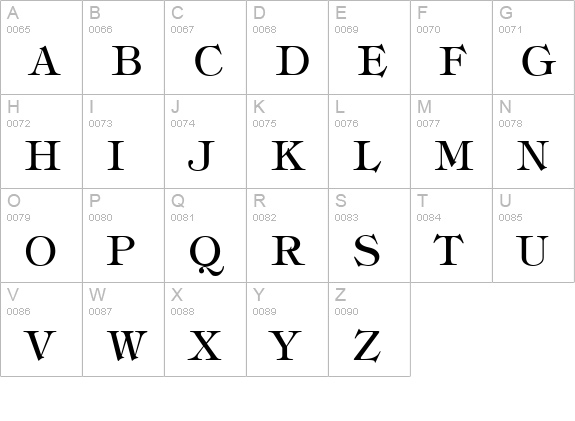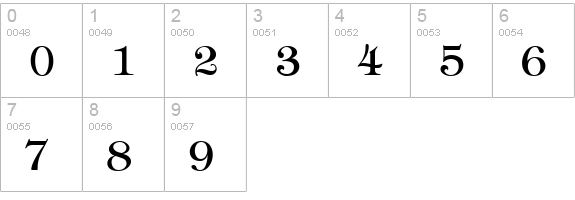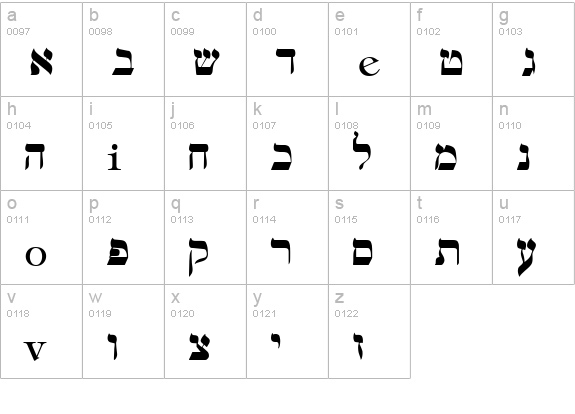
Hebrew Regular Font Details
Hebrew Regular is the standard, neutral variant in the Hebrew typeface family \xE2\x80\x94 well suited to general body text, paragraphs, and standard typographic work.
Hebrew Regular font is a beautifully designed typeface that perfectly captures the elegance and grace of the Hebrew script. With its clean lines and balanced proportions, this font is ideal for a wide range of projects, from print materials to digital designs. The Hebrew Regular font is not only visually appealing, but it also offers excellent legibility, making it easy to read even at smaller sizes. Its smooth curves and precise strokes create a harmonious flow, ensuring a comfortable reading experience for both printed and digital content. One of the best things about the Hebrew Regular font is that it is available for free. Yes, you read that right! This fantastic font can be freely downloaded from FontsMarket.com, a reputable website known for its vast collection of fonts. Whether you are a designer, a student, or simply someone who appreciates the beauty of Hebrew typography, the Hebrew Regular font is a must-have. Its versatility and timeless appeal make it suitable for various applications, such as branding, logos, invitations, and more. So, why wait? Head over to FontsMarket.com and grab your free download of the Hebrew Regular font today. Enhance your designs with the elegance and sophistication that this font brings, and make a lasting impression with its timeless beauty.